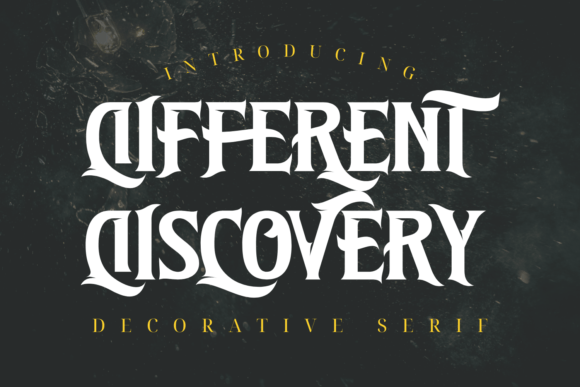
Unleash Your Creativity with Different Discovery Font
Have you ever been struck by a burst of creativity while driving down a winding road, surrounded by the vibrant murals of a city’s street art scene? For designers, moments like these can be a spark that sets off a chain reaction of inspiration. And for those who crave a font that captures the essence of rebellious spirit and artistic flair, the Different Discovery Font is a game-changer.
This vintage-inspired font is a nod to the tattoo and biker cultures that have long been a source of fascination for many. With its strong, curved lines and elegant character, the Different Discovery Font is the perfect addition to any design project. Whether you’re working on a merchandise design, streetwear brand, or typography project, this font is sure to make your product stand out.
Different Discovery Font Key Features
- Unique Characteristics: The Different Discovery Font features a unique blend of modern and vintage elements, with intricate details and flourishes that add a touch of elegance to any design.
Different Discovery Font Review
Overall, I was impressed with the Different Discovery Font’s unique aesthetic and versatility. Here are some of its strengths:
- ✨ The font’s distinctive flair and personality make it perfect for creating eye-catching headings and titles.
- ✨ Its extensive character set and language support make it a great choice for multilingual designs.
- ✨ The font’s variable font technology allows for seamless scaling and customization, making it ideal for web and digital applications.
However, I encountered some limitations while working with the font:
- ⚠️ The font’s irregular letterforms and high contrast can make it difficult to read at small sizes or in certain contexts.
- ⚠️ The font’s variable font technology, while powerful, can be overwhelming for designers without experience working with variable fonts.
- ⚠️ The font’s extensive character set and language support come at the cost of file size, which may be a concern for designers working with limited bandwidth.
Overall, I would recommend the Different Discovery Font to designers looking for a unique and versatile font for their projects. While it may have some limitations, its strengths make it a valuable addition to any designer’s toolkit.
Different Discovery Font is ideal for:
- Body text in creative projects
Remember to use the font in moderation and balance it with other design elements to avoid visual overload.